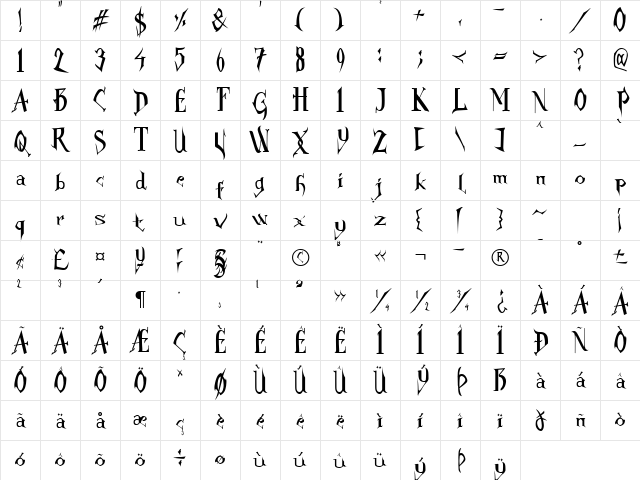
Witch Regular
Foundry: Blackletter Studio
Designer: Blackletter Studio
Design Context for Witch
Witch is a composed and adaptable typeface that performs quietly and consistently across a wide range of design contexts.